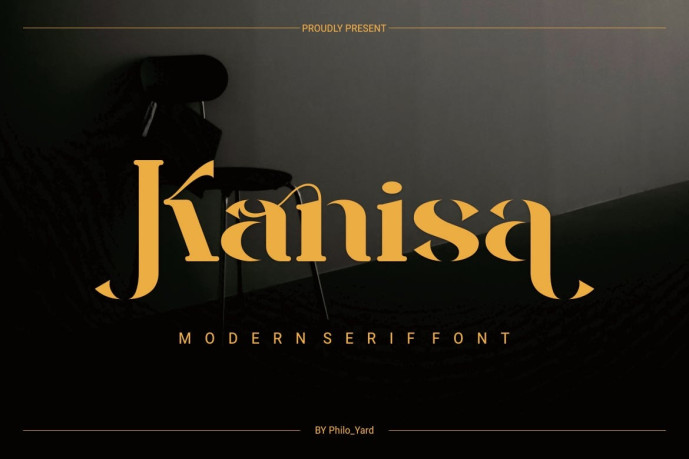
Kanisa – Modern Serif Font
Designer: Philo_Yard
Kanisa – Modern Serif Font is a modern serif typeface crafted for timeless elegance and visual storytelling. Its clean contrast and subtle ligatures make it ideal for branding, fashion editorials, and luxury packaging. Designed with cinematic grace, this font evokes sophistication and aesthetic harmony in every composition.
Font Features
Perfect For: Luxury branding, editorial headlines, packaging, and logo design.